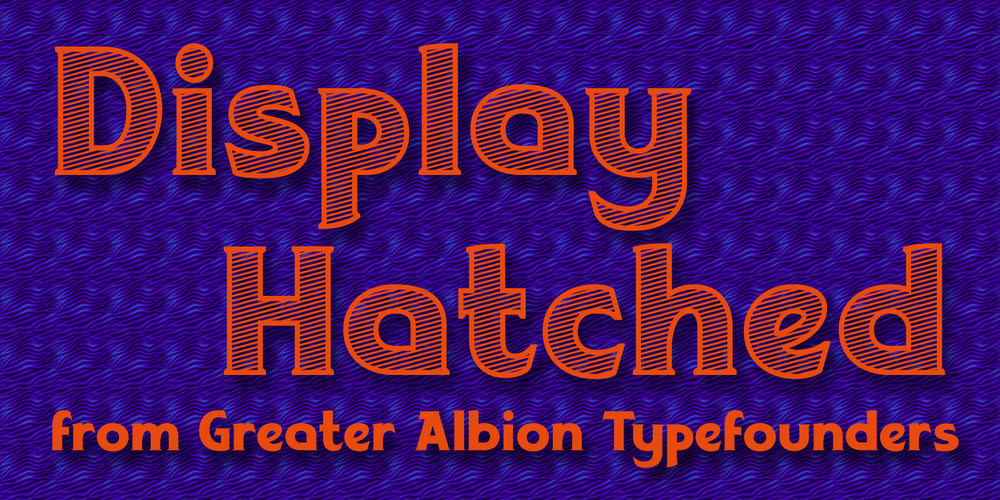
Display Hatched
Display Hatched font
Display Hatched Font Family was designed by Paul James Lloyd and published by Greater Albion Typefounders. Display Hatched contains 1 styles and family package options. Display Hatched is ideal for posters with an industrial theme and is designed as a complement to Greater Albion’s “Singwriter Standard” typeface. All glyphs are diagonally shaded giving just a delicate touch of ‘industrial edge’ which is so ‘on trend’ at the moment. Display Hatched includes small capitals and title forms, as well as three forms of numerals. Bring a little industrial grit to your next project!